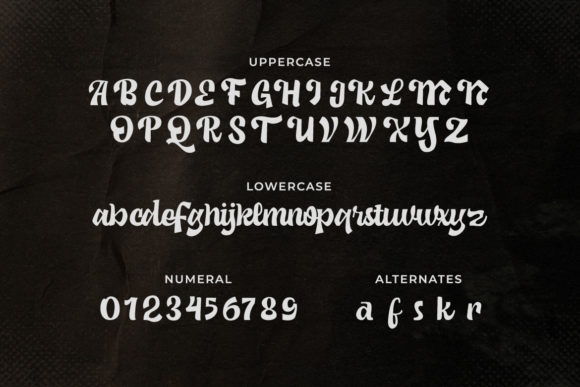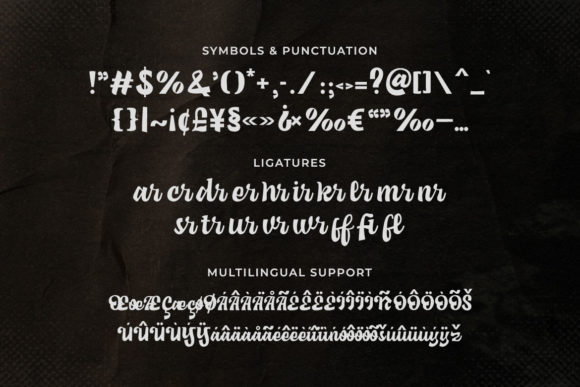
About Abrock Font
Abrock is a beautiful and elegant handwritten font. It will go perfectly on a wide variety of creative projects such as logos, headings, coffee shops, vintage restaurants, letterheads, signage, labels, news, posters, badges, and many more. Don’t hesitate to add it to your designs and observe its stunning results!